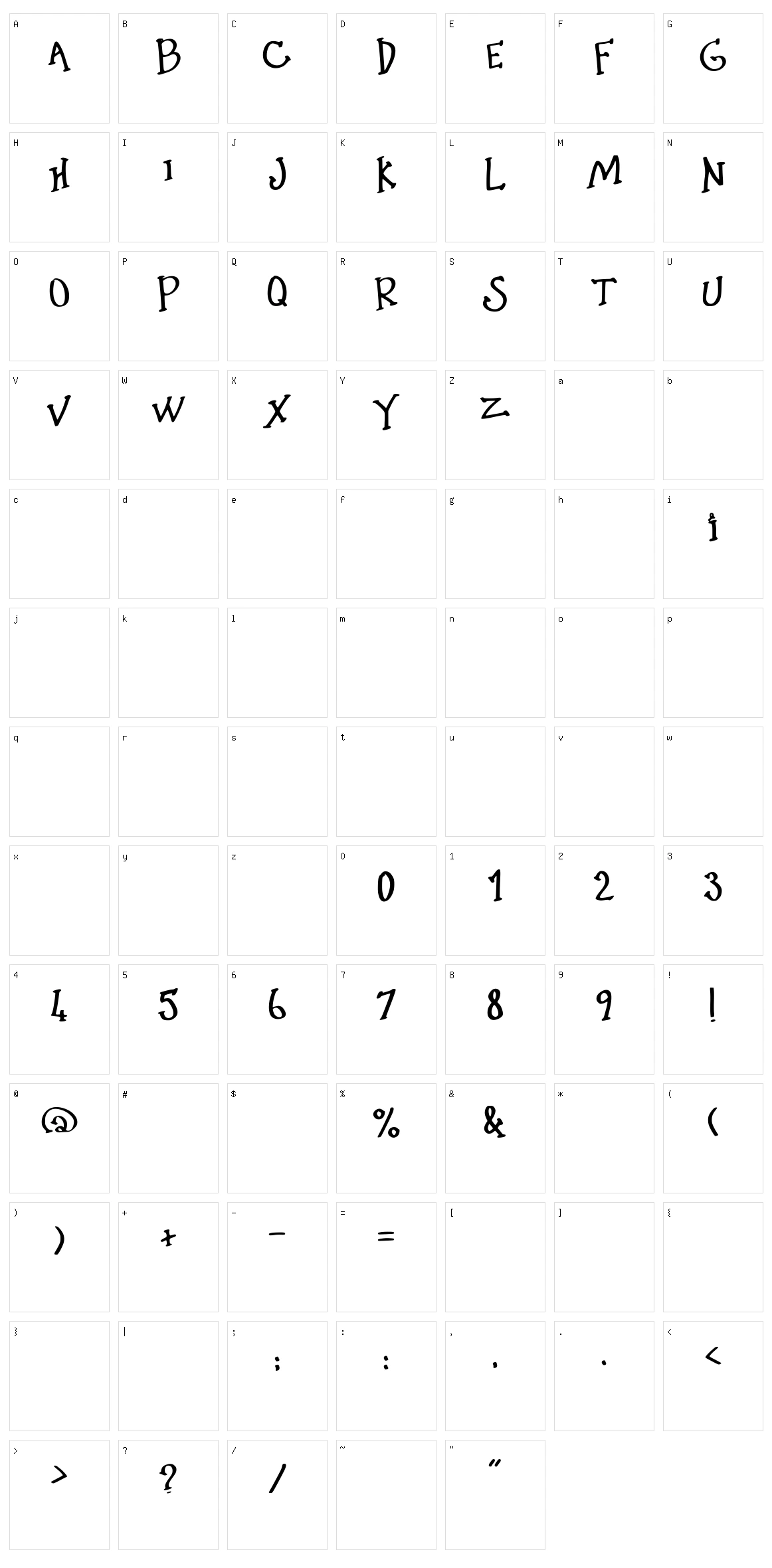
The free font Little Pink Shit is carefully designed by Mercan Alper, showcasing a thoughtful balance of creativity and usability and falls under the Cartoon font style. When you download the ZIP file, it contains only 10.2 KB of font files, making it lightweight and quick to download. Please review the license details below to understand permitted usage and distribution rights. If license information is not available, we recommend using this font for personal projects only or contacting the author directly for commercial usage permissions.